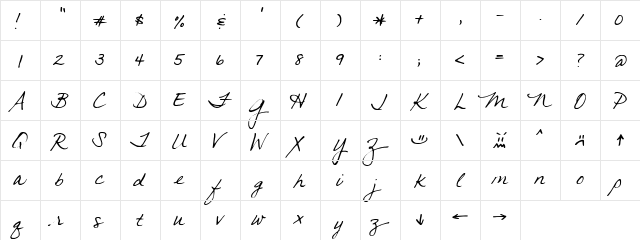
Jeana Script
| Style | Script |
| Foundry | Font Garden |
| Designer | Jeana fonted by Ellinor Rapp |
Design Context for Jeana Typeface
Jeana flows with the natural rhythm of handwritten lettering, making it ideal for designs that call for warmth and personal expression.
Font Pairing: Combine Jeana with a simple geometric sans for maximum contrast — the tension between flowing curves and clean structure is a classic typographic pairing.
Pro Tip: Use Jeana for short runs of text — names, titles, or taglines. Extended body copy in script faces tires the eye quickly.